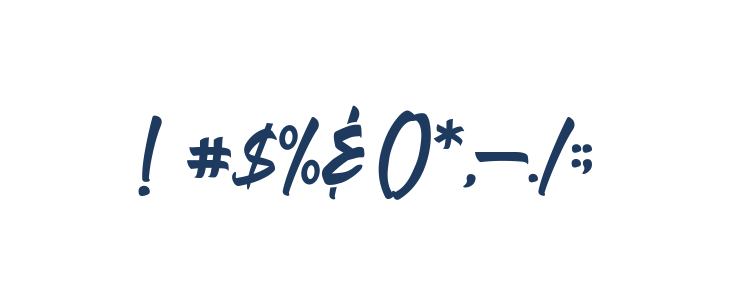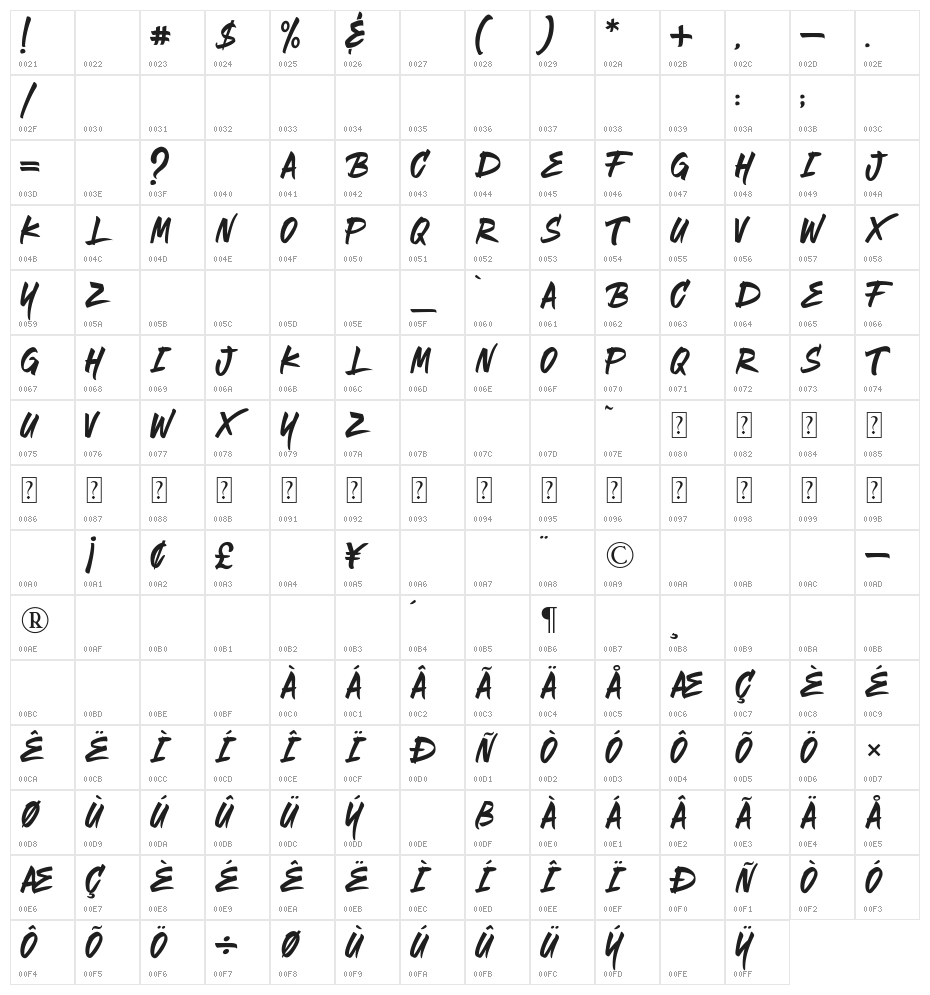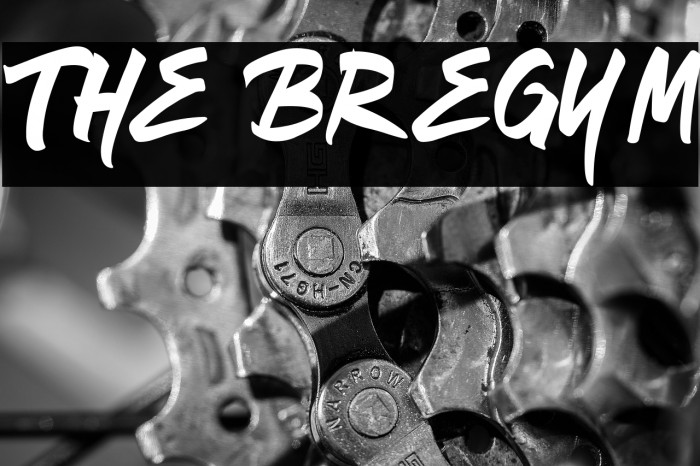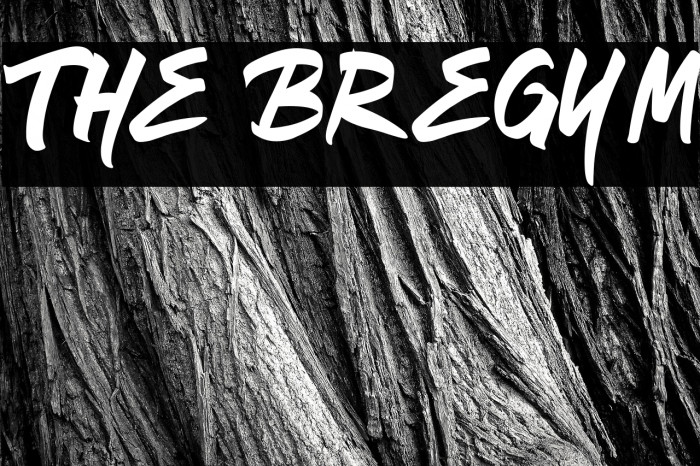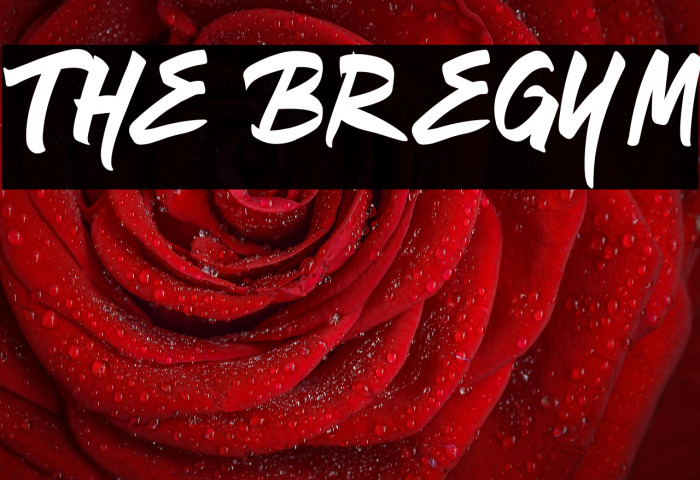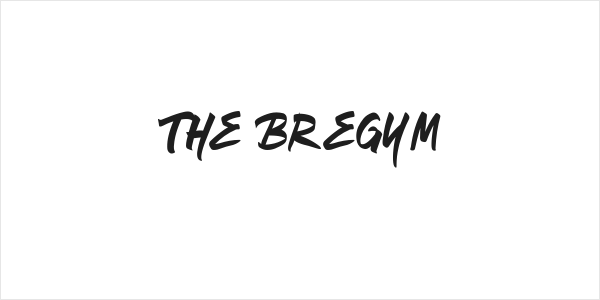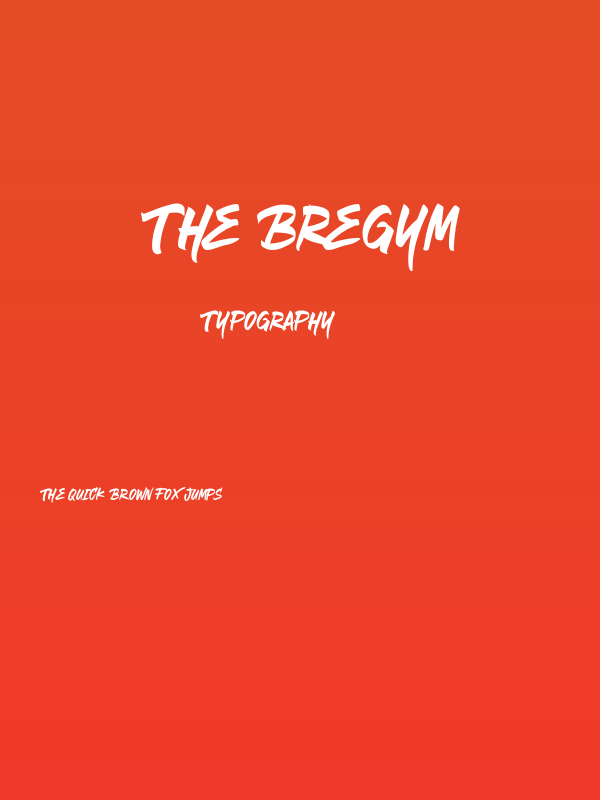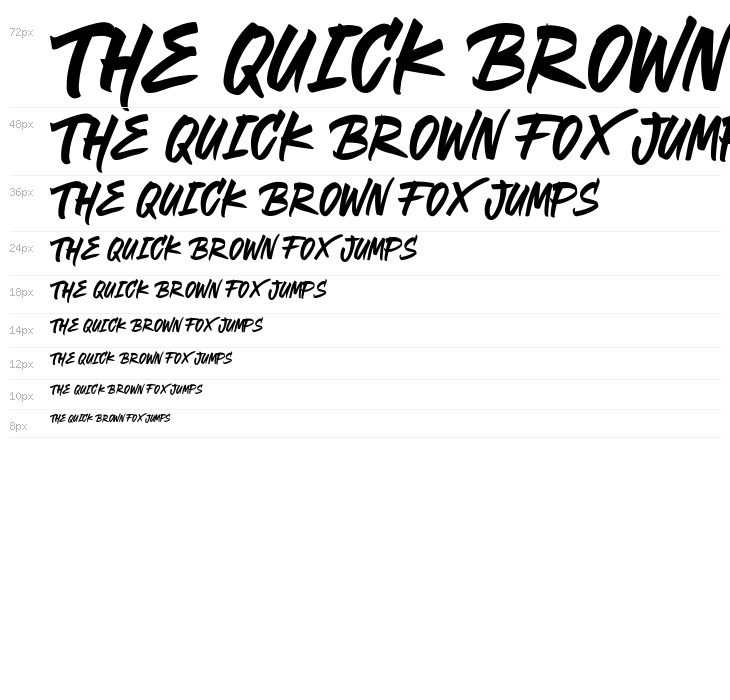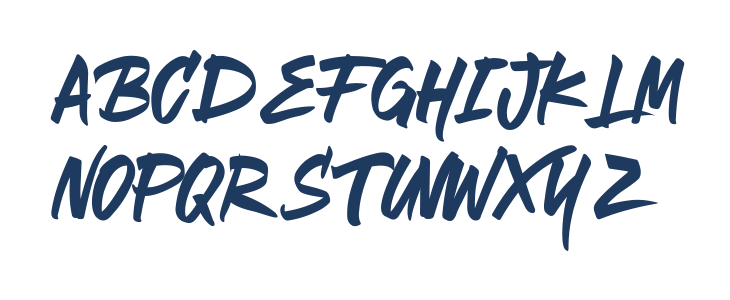
The Bregym Font
The Bregym Description
This font features a bold and energetic script style, characterized by its dynamic and flowing letterforms. The strokes are thick and expressive, giving it a strong presence. The letters are slightly slanted, adding to the sense of movement and liveliness. The uppercase and lowercase letters are well-balanced, with a consistent stroke width that maintains readability. The font includes a full set of numerals and a variety of special characters, making it versatile for different design needs. Its handwritten appearance gives it a personal and informal touch, suitable for creative and artistic projects.
| Proposed Projects | Ideal for branding, posters, invitations, and social media graphics where a lively and personal touch is desired. |